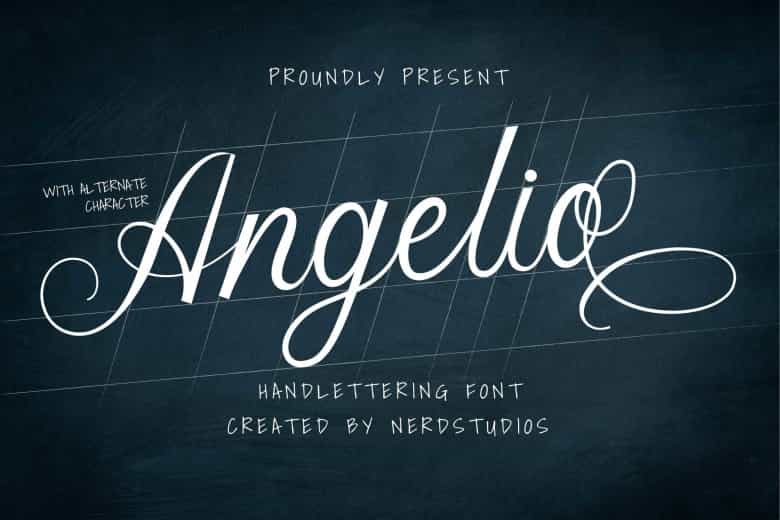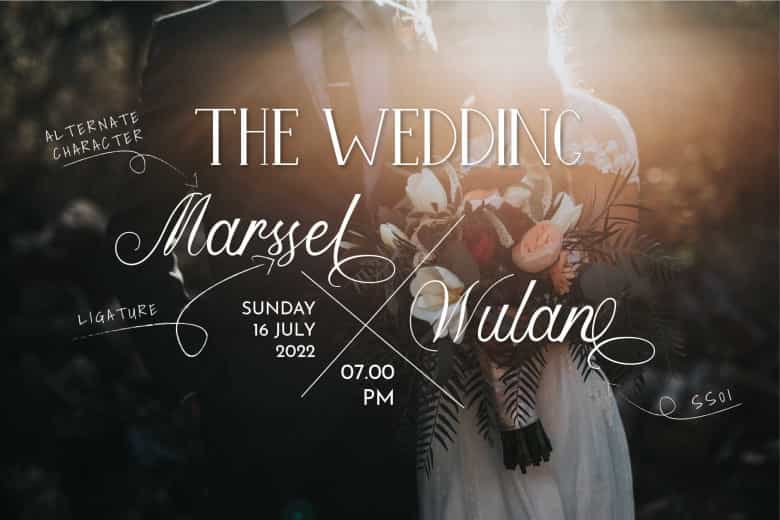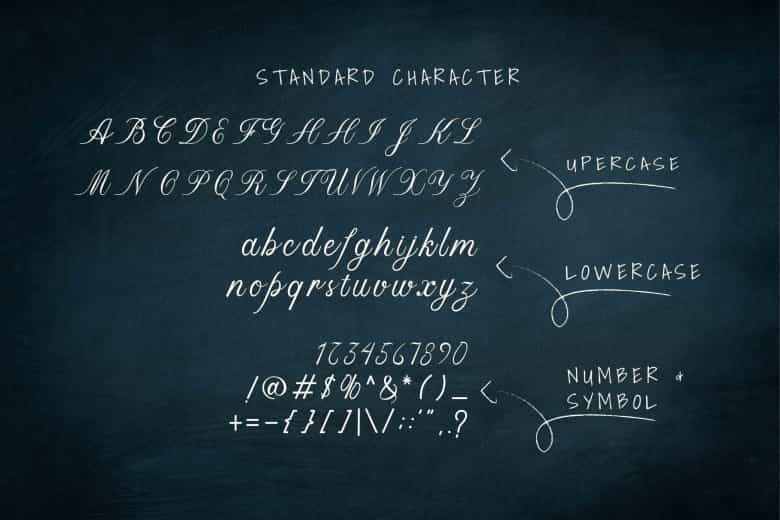
Angelio can be described as an eye-catching handwritten script font. Featuring exquisite design and intricate details, this font will enhance any design. Perfectly complementing its name, Angelio makes an eye-catching addition to your font library and can help enhance any subject area or design subject matter.